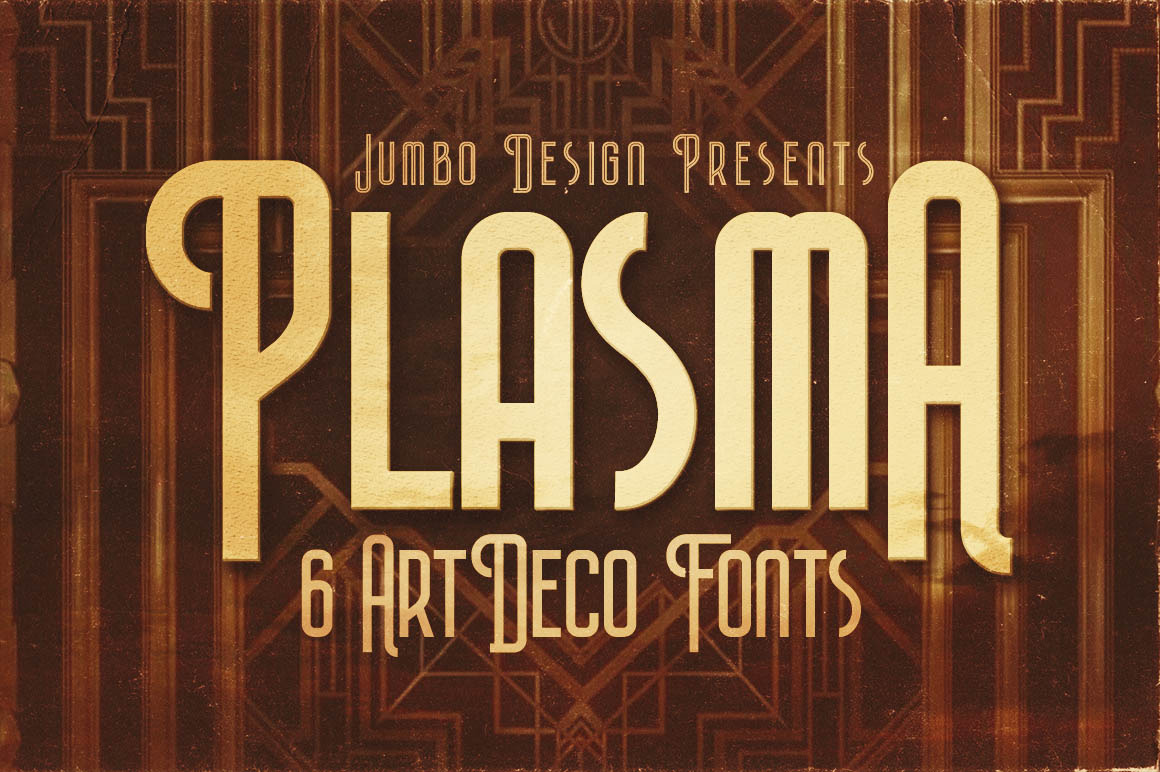
Plasma - ArtDeco Style Font
Unique artdeco, retro or vintage style custom font with 6 styles: regular and grunge, inline and inline grunge, bold and bold grunge.